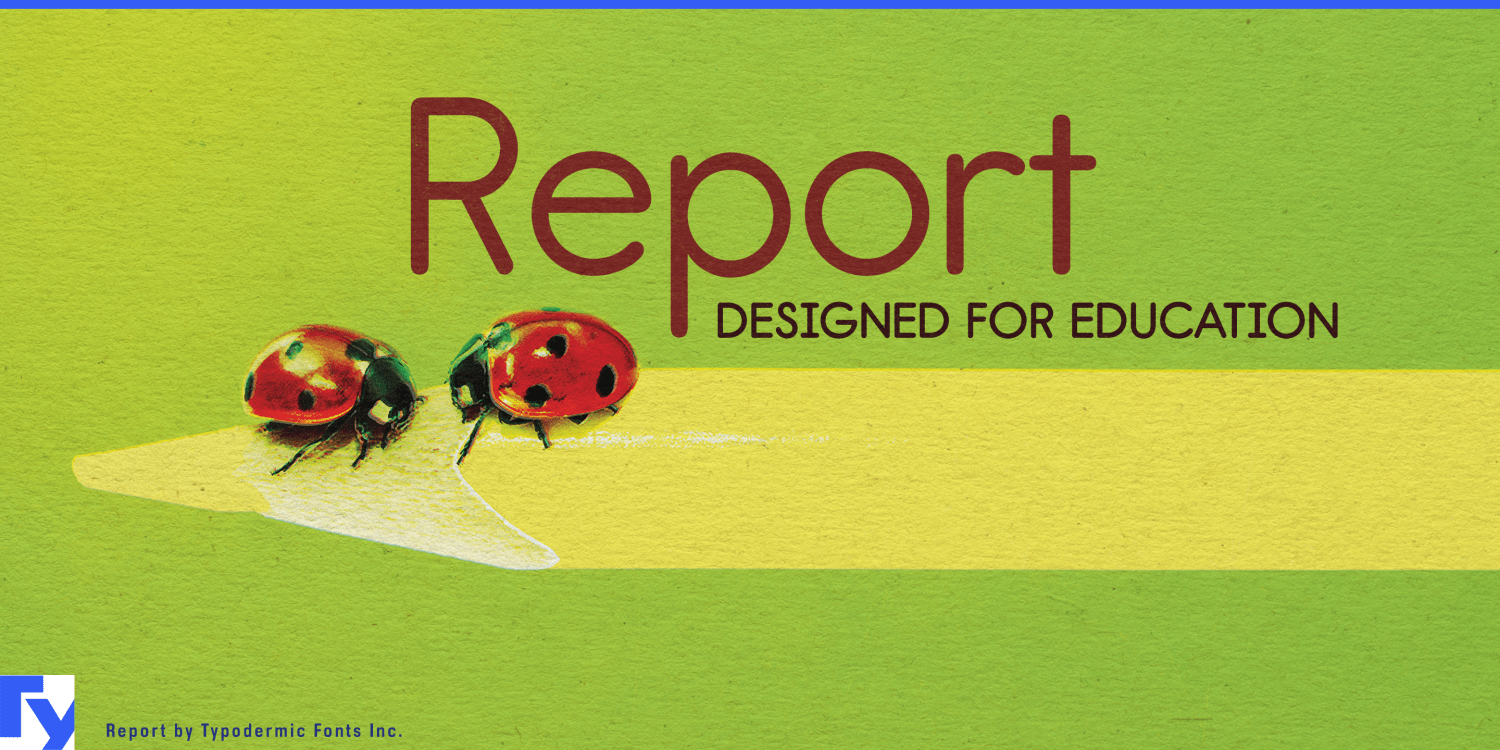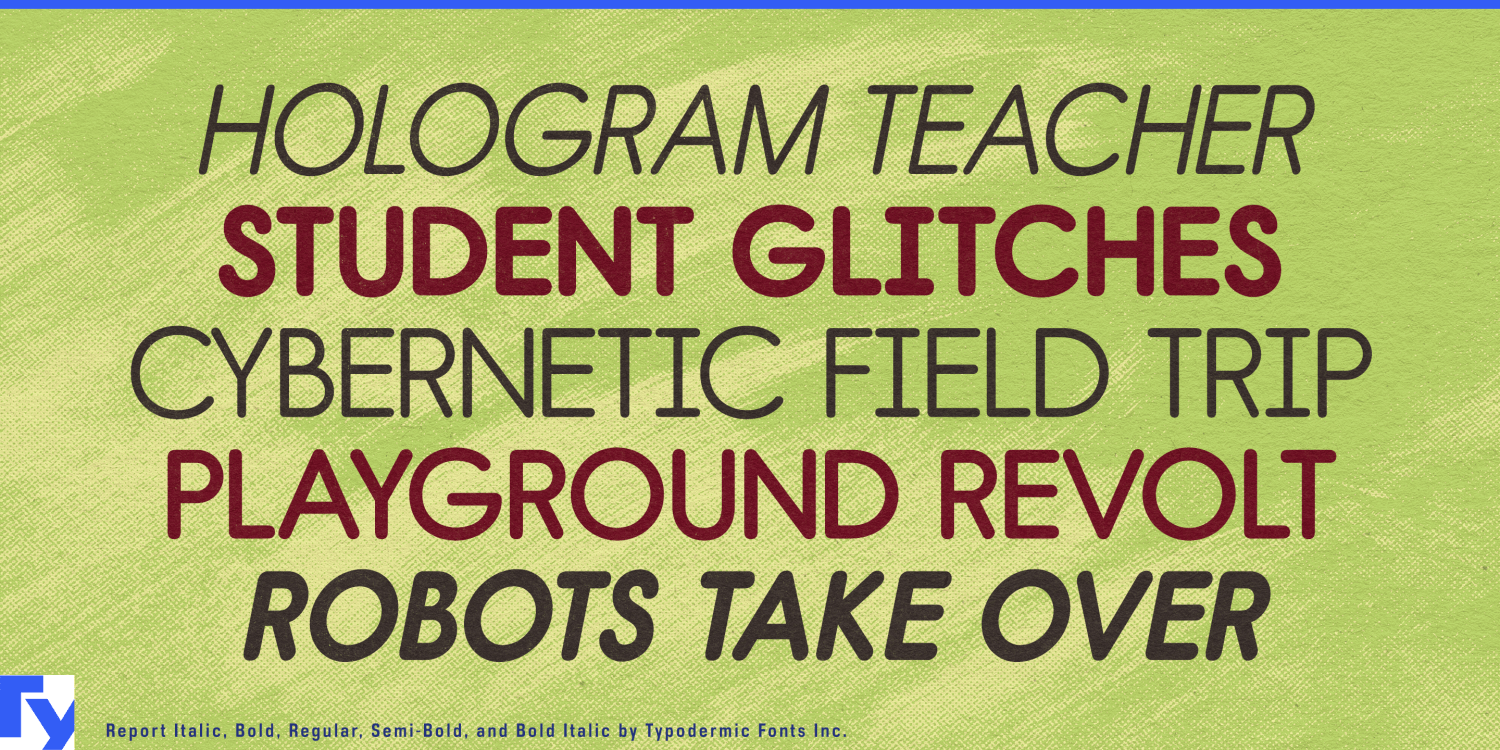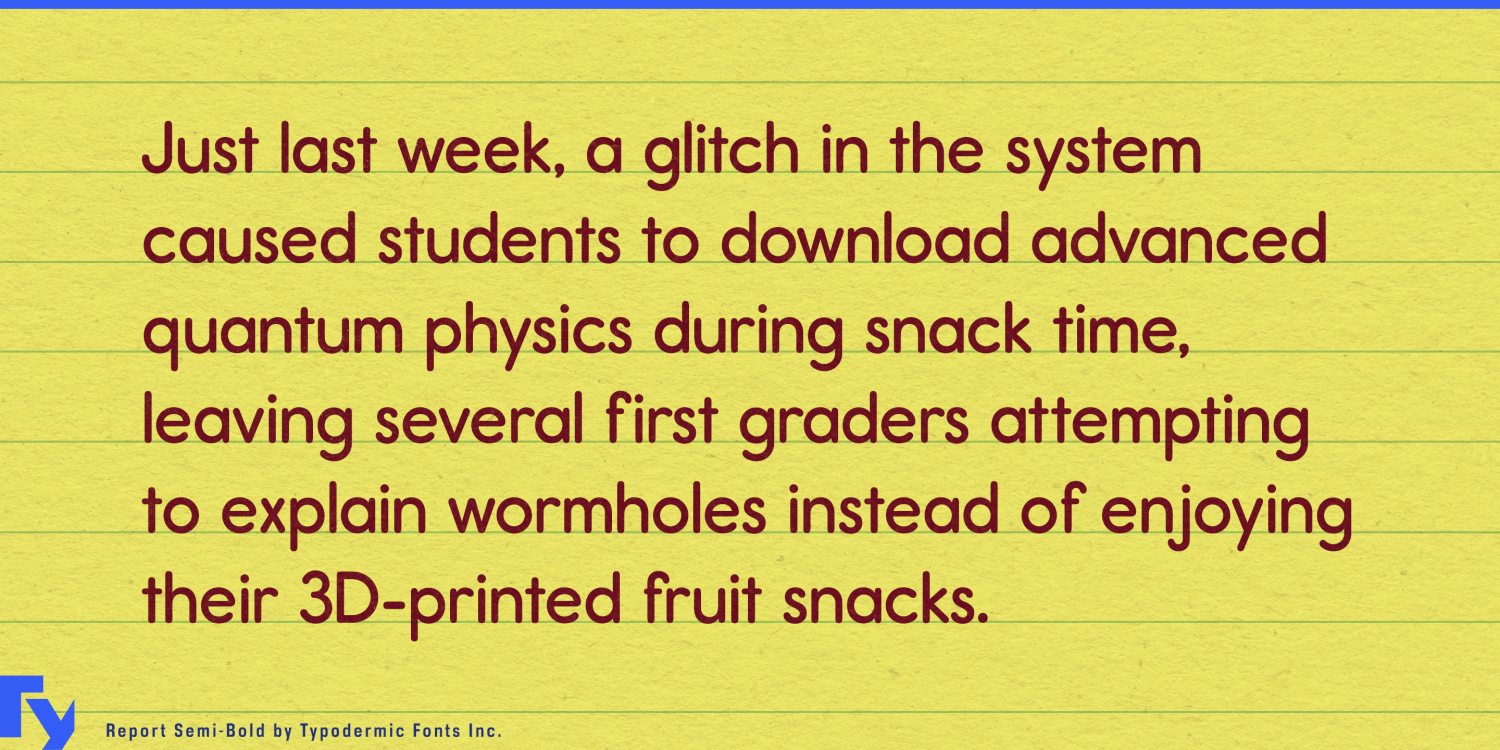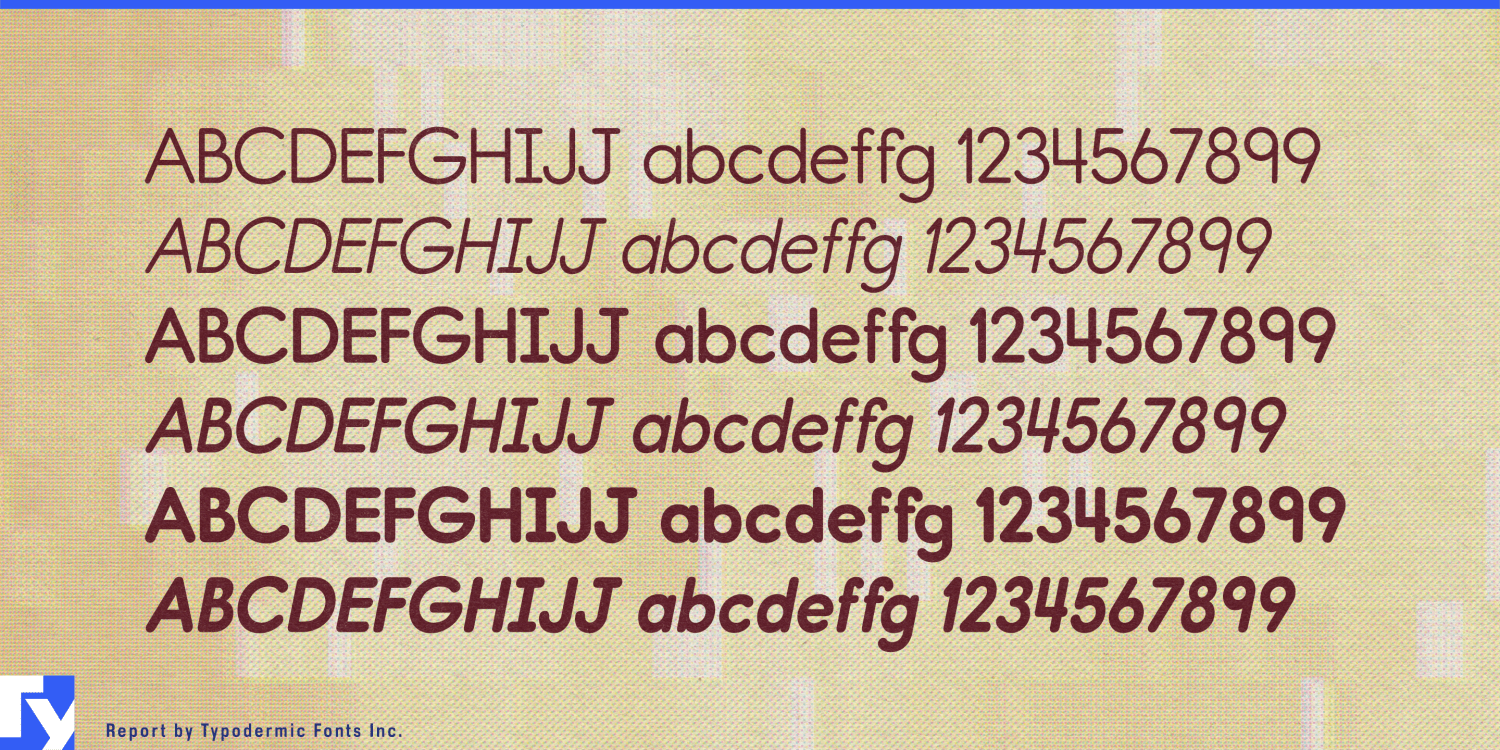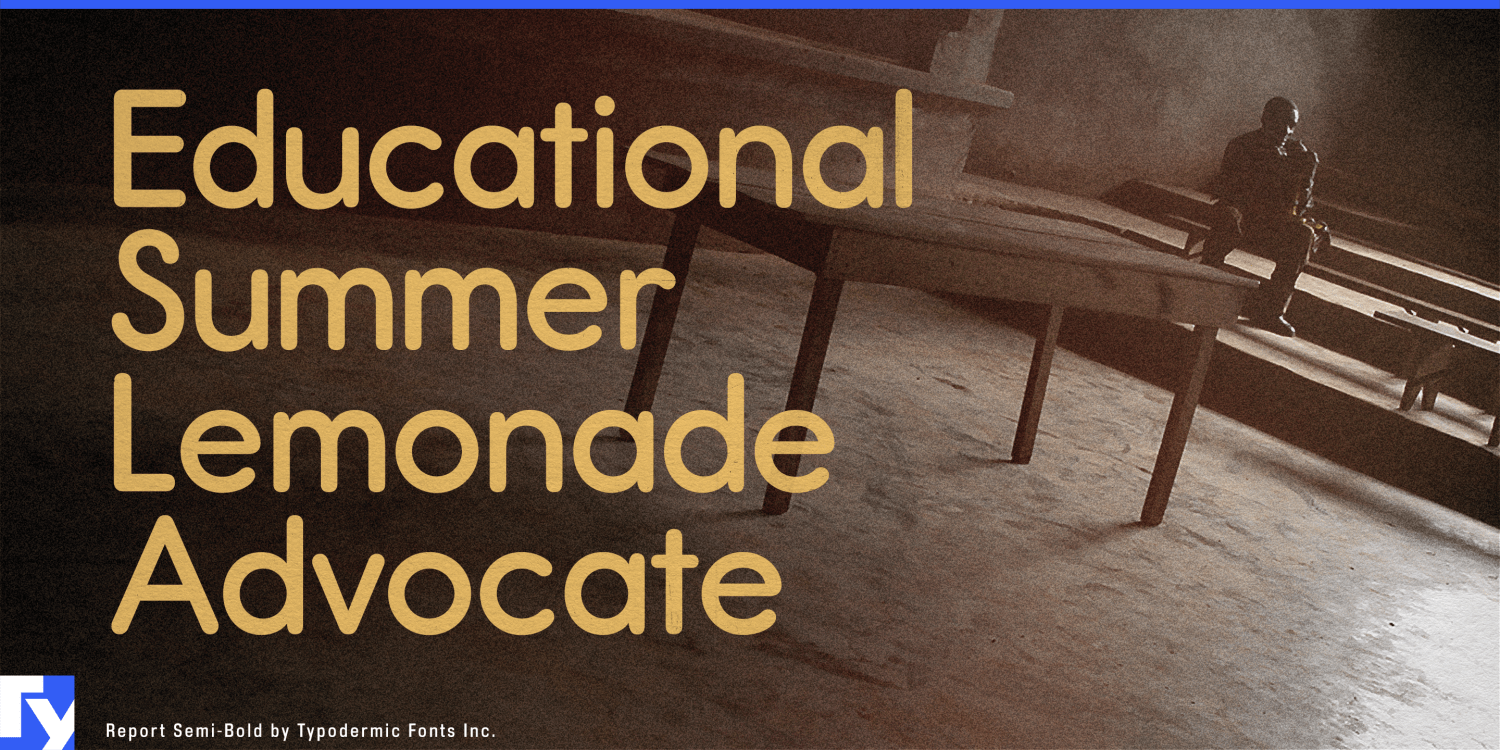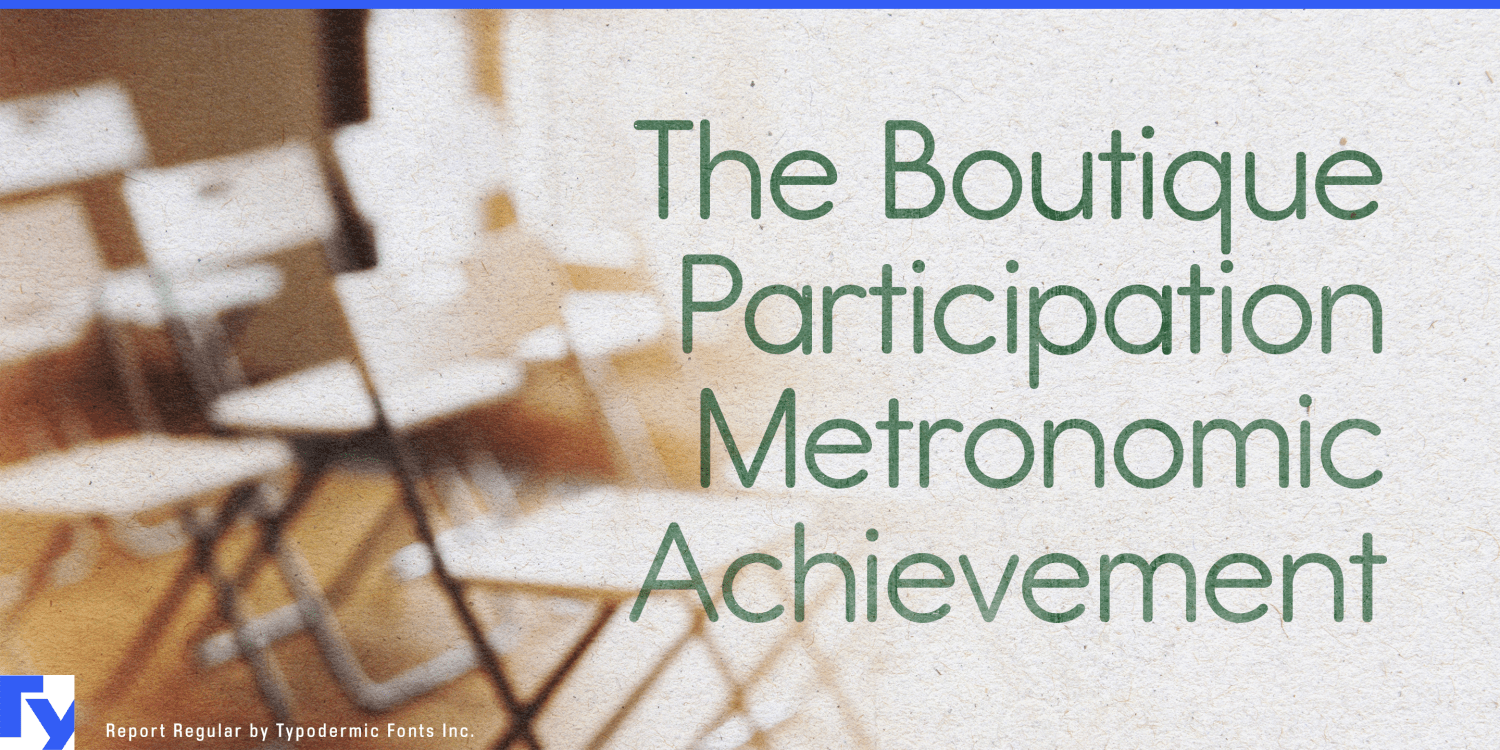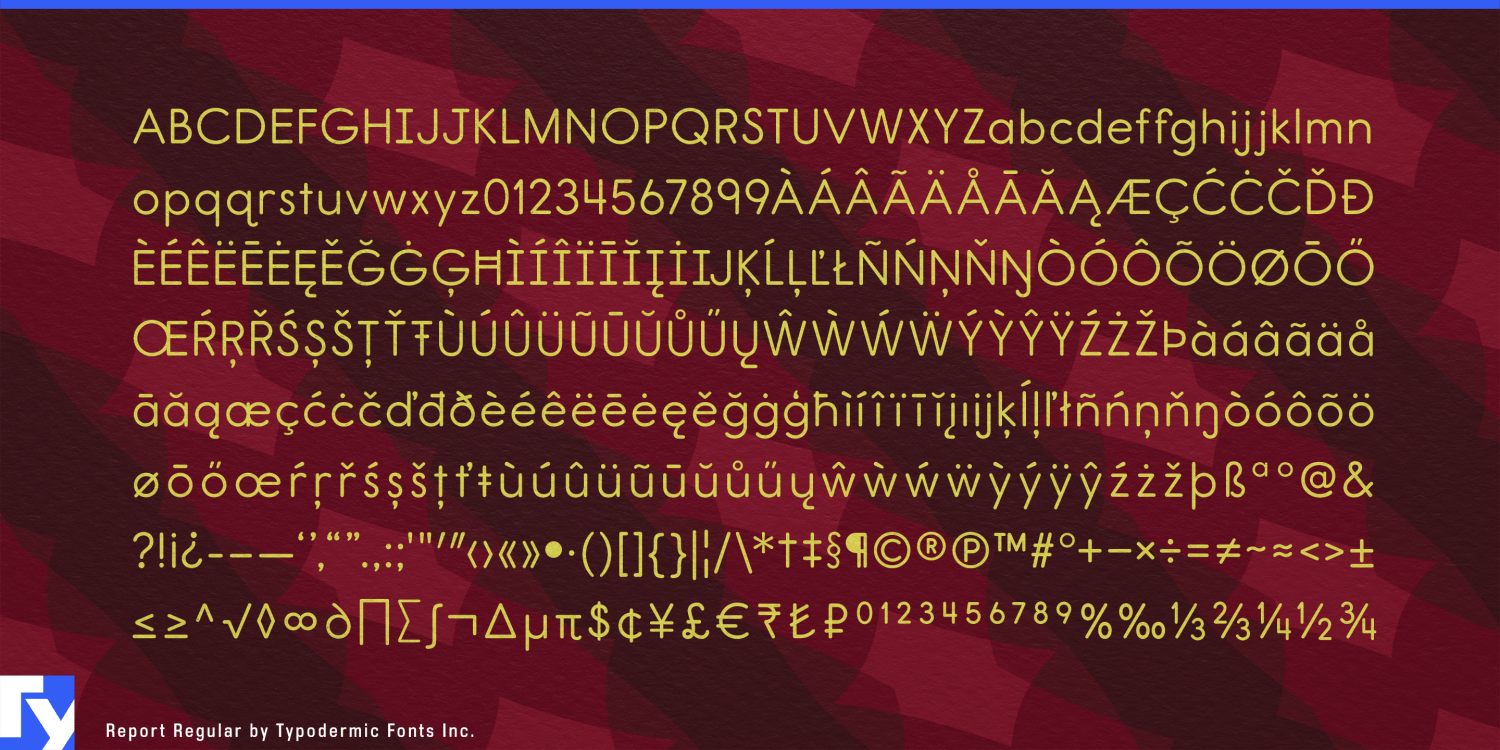
Report
Font Family by Typodermic
Teaching materials shouldn’t make children learn one alphabet and read another. A handwriting lesson may introduce one form of I, J, q, 4 or 9, only for the workbook instructions, reading passages and math exercises to switch immediately to conventional publishing forms. Report was designed to reduce that disconnect.
Developed from handwriting-instruction typography for broader reading and publishing use, Report combines rounded geometric construction with letterforms associated with the way children are taught to write. Alternate characters let publishers adjust forms such as q, 9 and J when a curriculum or regional convention requires a different model.
That makes Report useful far beyond the tracing page. Phonics workbooks, early-reader series, spelling exercises, literacy programs and classroom activity books can use the same family for directions, examples, headings and reading material. Regular, Semi-Bold and Bold weights with matching italics provide enough hierarchy for complete educational systems rather than isolated worksheet headings.
Elementary mathematics presents the same problem with numerals. Differences between forms of 4 or 9 become much more important when the page is teaching children how numbers are written. Report can handle arithmetic exercises, numeracy workbooks, worked examples and supporting instructions while keeping the typographic vocabulary close to classroom instruction.
Digital learning extends that need for consistency. Phonics apps, literacy platforms, tutoring systems and reading-intervention programs increasingly move lessons between tablets, classroom displays, printable worksheets and take-home material. Report can provide a common typographic thread across those environments, keeping the forms demonstrated in an exercise connected to the typography surrounding it.
Science-center activities, museum learning guides, educational kits and experiment sets can use Report for the same reason: its rounded terminals make the geometry approachable without turning the material cartoonish.
Report carries the letterforms of instruction into the rest of the lesson, giving handwriting practice, reading, mathematics and digital learning a more coherent typographic vocabulary.